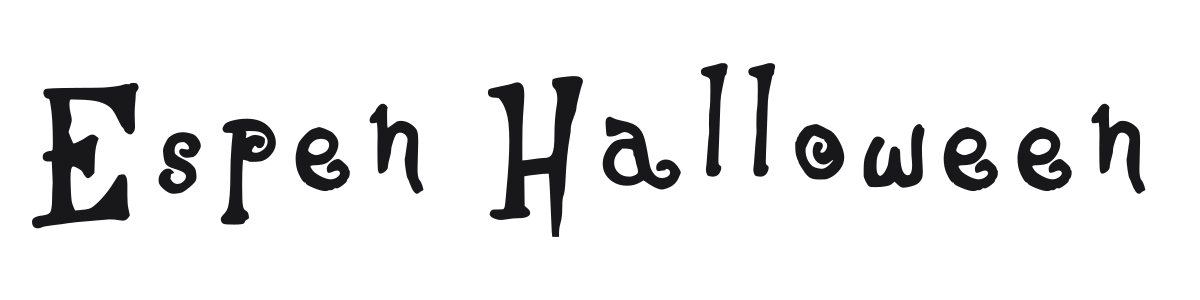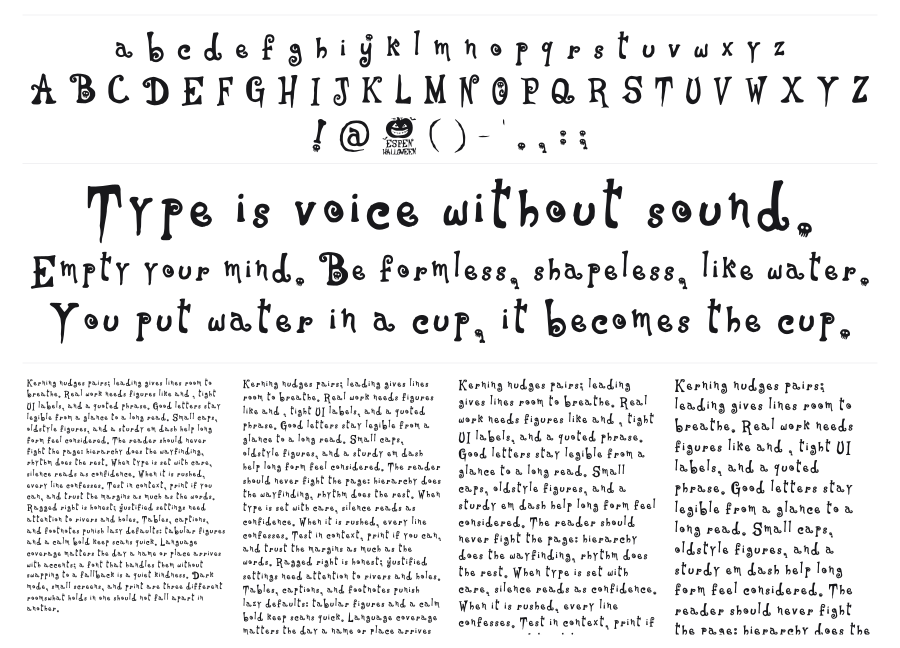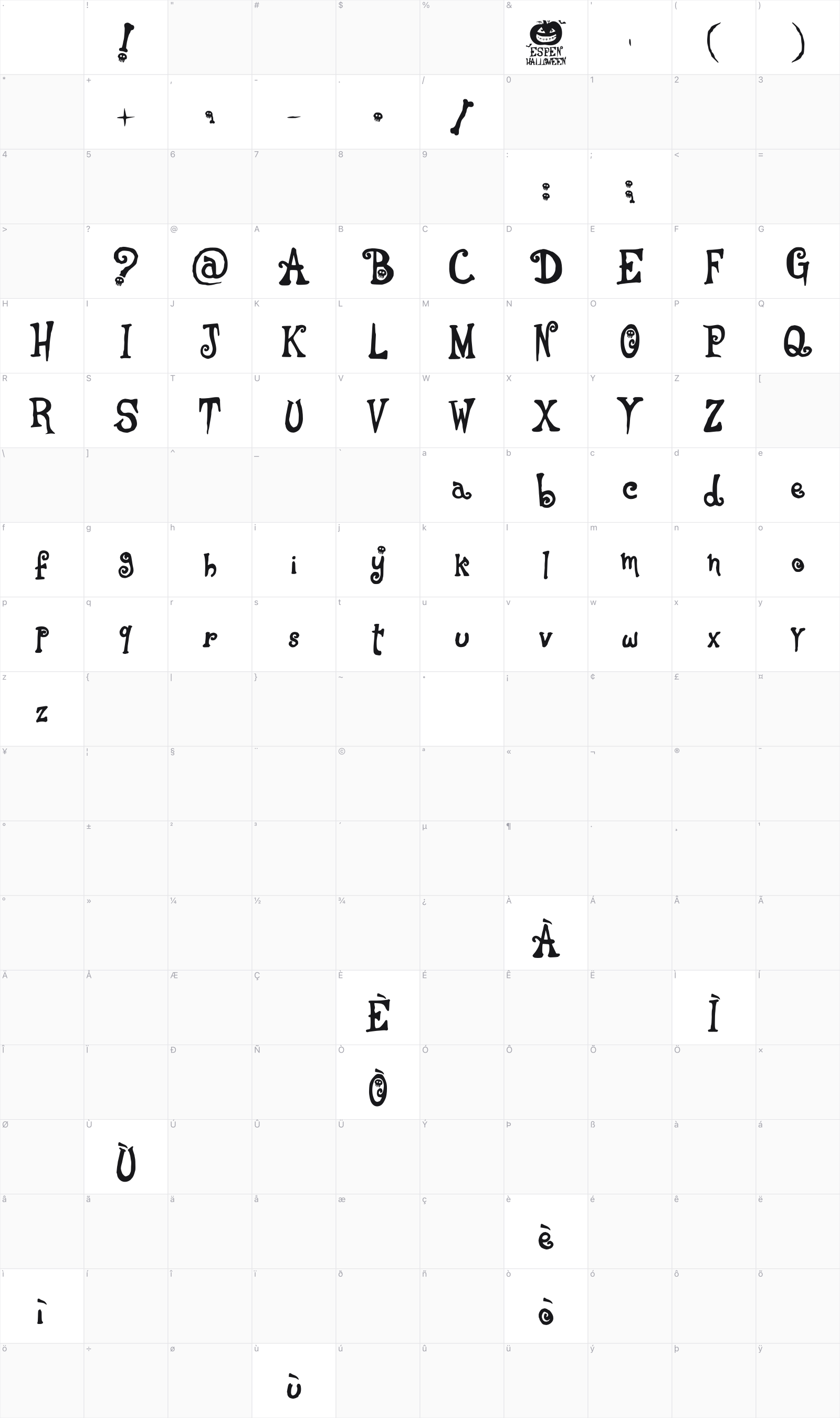
Espen Halloween
Espen Halloween is a chunky, hand-drawn serif built around curled terminals and deliberately uneven spacing for a spooky comic-book feel. Drawn as a companion to the Espen Comics family, it leans into Halloween aesthetics with thick strokes and wiggly, hook-like serifs. A natural choice for seasonal graphics, event posters, and comic lettering where a fun-creepy tone is the goal.